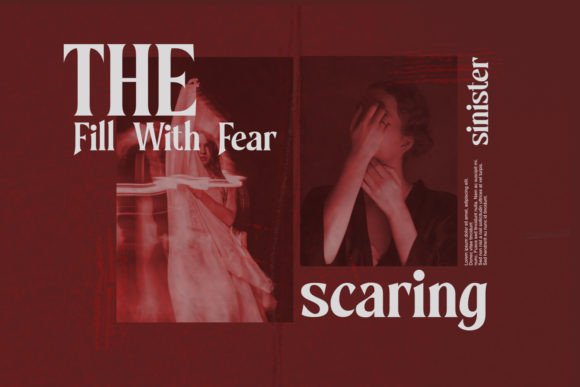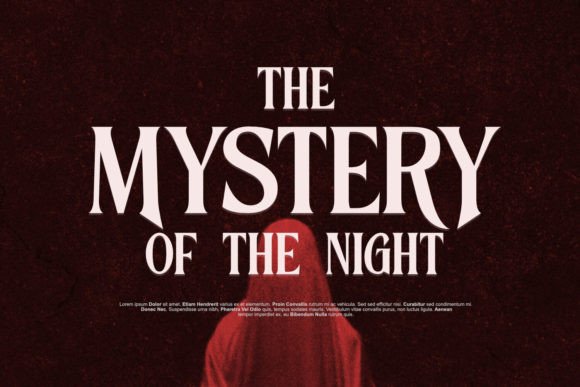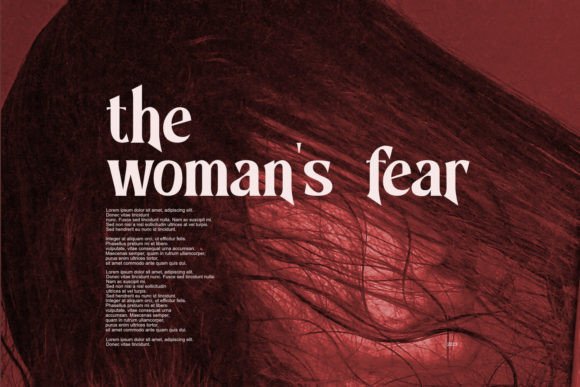
Introduction to Horrifal Font
Remember that moment when your creative spark ignites, and you envision the perfect design for your next project? The thrill of bringing your idea to life is exhilarating, and the right font can make all the difference. That’s where the Horrifal Font comes in – a masterfully designed display font that elevates your creative vision to new heights.
As a designer, you understand the value of having a high-quality design resource at your fingertips. With the Horrifal Font, you’ll have access to a unique and versatile font that can be used for a wide range of creative projects, from graphic design to digital art. Its transparent background and sleek design make it a standout choice for any design enthusiast.
Key Features of Horrifal Font
- Features a transparent background, allowing for seamless integration into designs and reducing the risk of visual clutter.
- Designed with a focus on high-resolution output, making it suitable for use in both digital and print-based creative projects.
- Perfect for designers seeking a design resource that adds a touch of sophistication and elegance to their work.
- Includes a comprehensive character set, covering a wide range of languages and characters.
Honest Review: Horrifal Font
I recently stumbled upon the Horrifal Font and was excited to give it a try. As a designer, I’m always on the lookout for unique and high-quality design resources that can help me create standout projects.
Here are some things that work well with the Horrifal Font: ✨
- Unique aesthetic: The font has a distinctive, gothic-inspired design that can add a touch of horror to any creative project.
- High quality: The font is well-designed and looks great on both light and dark backgrounds.
- Limited customization options: The font is a bit too bold and dark to use on a transparent background, which can make it difficult to read in certain contexts.
- No italic or bold variants: While the font is great for headings, it would be nice to have some additional variants to use for body text.
Overall, I think the Horrifal Font is a great design resource for anyone looking to add a touch of horror to their creative project. While it may have some limitations, it’s a high-quality font that’s definitely worth checking out.
The Horrifal Font is a free design resource that offers a high-quality, unique aesthetic perfect for creative projects. This versatile font can be used in a variety of settings, from bold headlines to subtle text overlays.
To get the most out of Horrifal Font, use it on a transparent background to create a bold, eye-catching effect. Experiment with different font sizes and colors to find the perfect look for your creative project.
Horrifal Font is perfect for:
- Designing bold headlines and titles
- Creating eye-catching graphics and overlays
- Adding a unique touch to presentations and documents